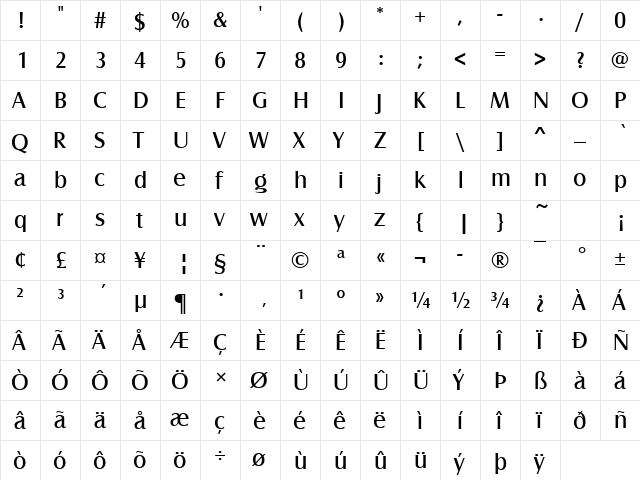
CastleT Regular
Design Context for CastleT Typeface
CastleT offers clean, dependable letterforms without strong stylistic allegiance, making it a practical choice for designers who need flexibility.